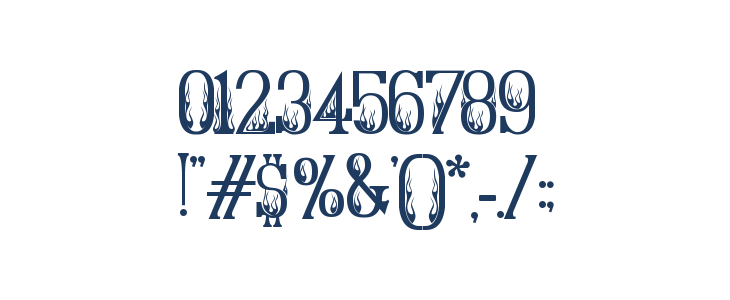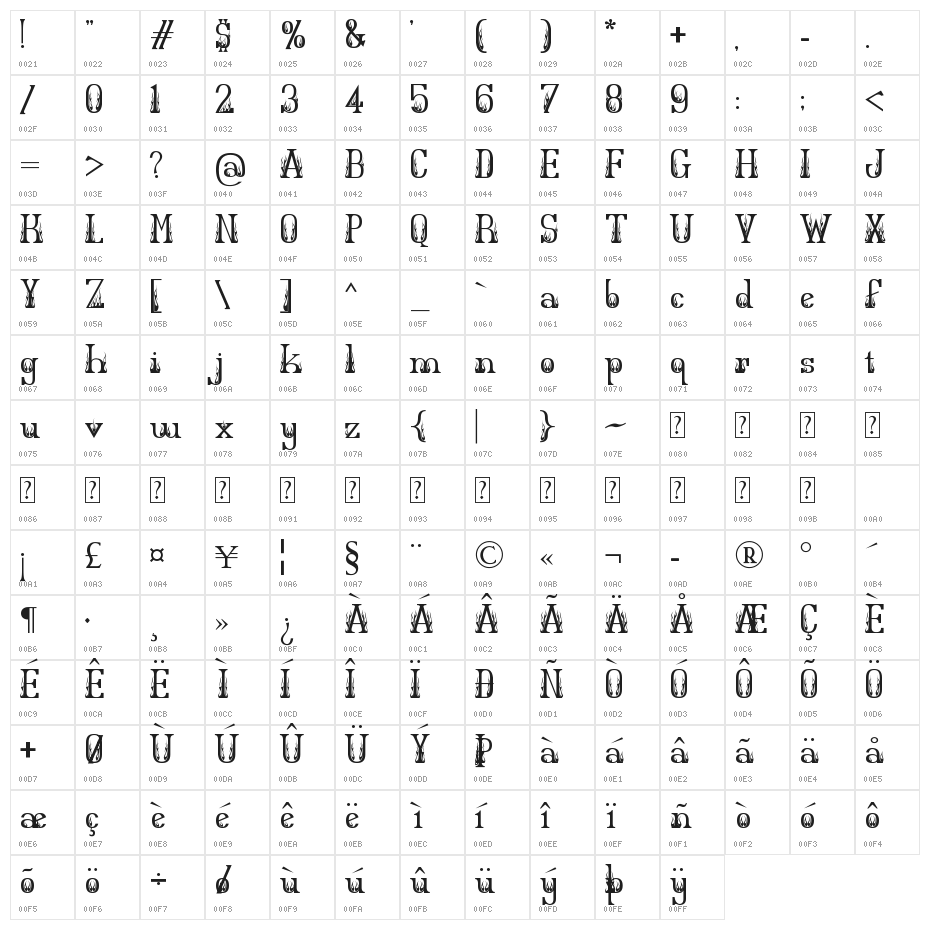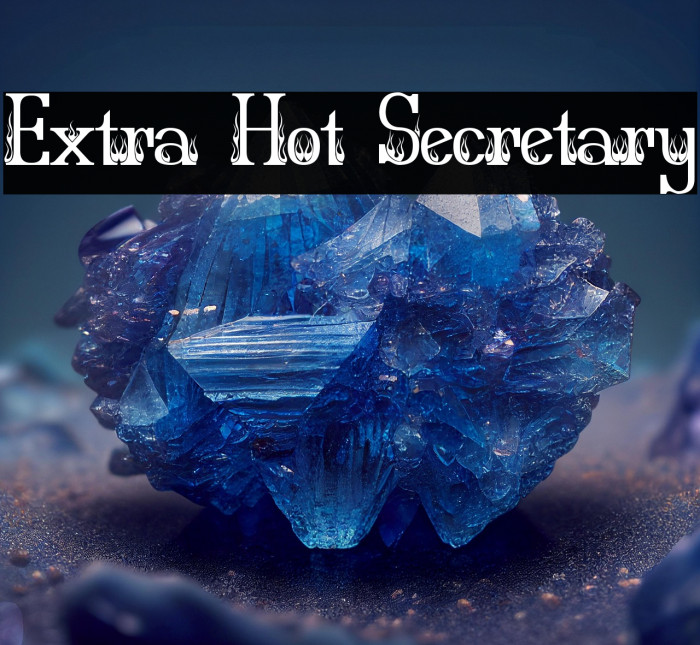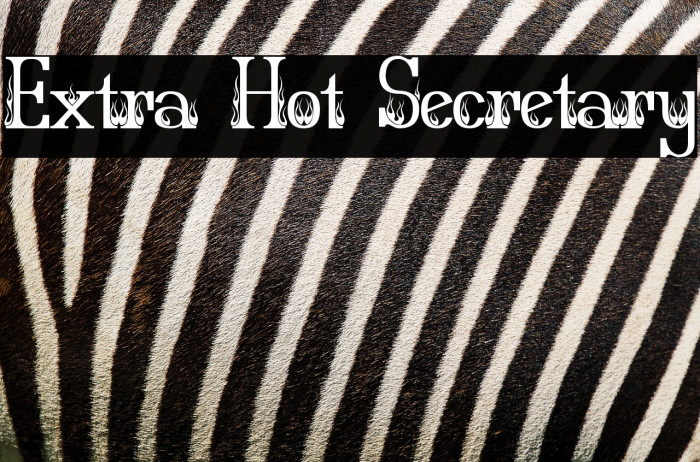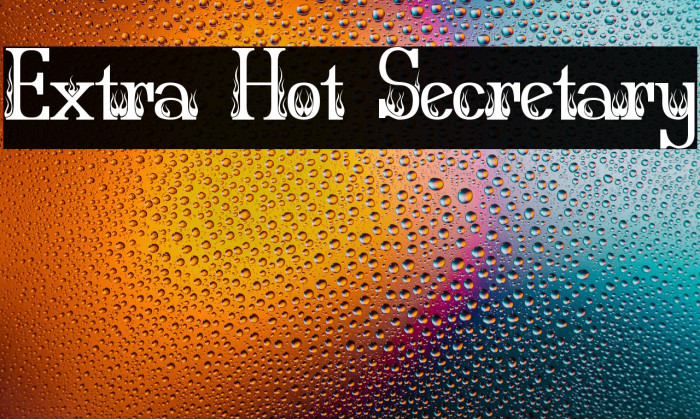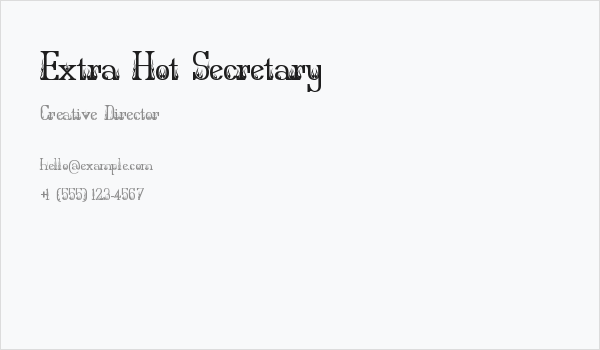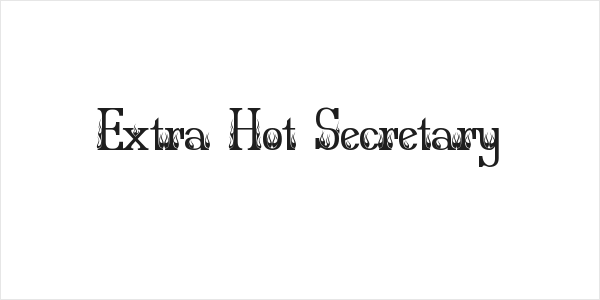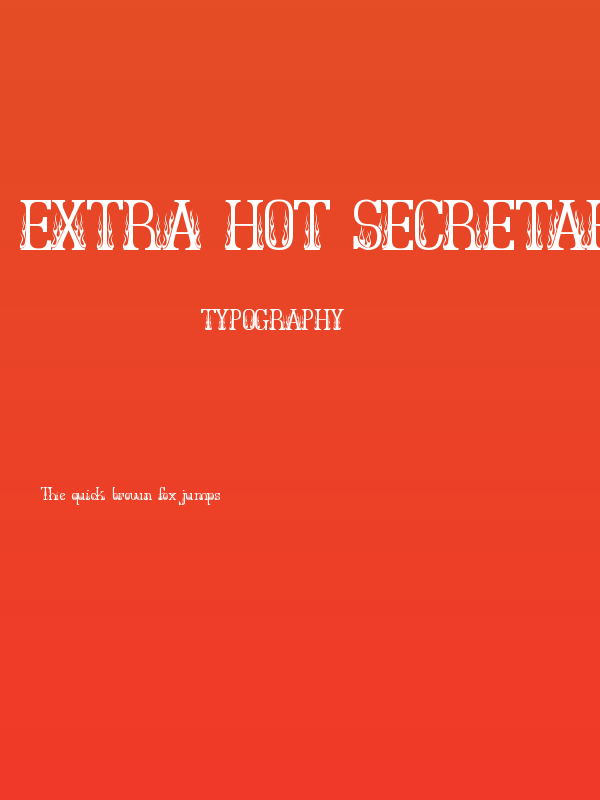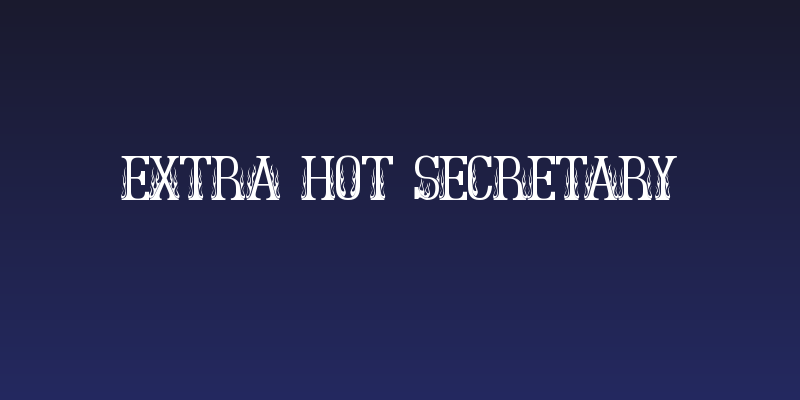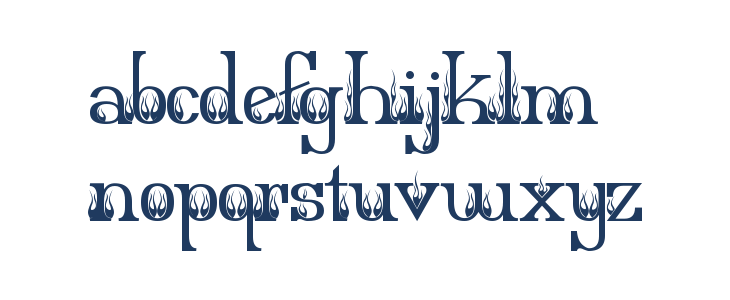
Extra Hot Secretary Font
Extra Hot Secretary Description
This font features a bold and dramatic design with flames integrated into each character, giving it a fiery and intense appearance. The uppercase and lowercase letters, as well as numbers and special characters, all incorporate flame motifs that rise from the base of each character, creating a sense of movement and energy. The strokes are thick and consistent, providing a strong visual impact. This font is ideal for projects that require a bold statement or a theme related to fire, heat, or excitement.
| Proposed Projects | Ideal for event posters, music album covers, themed party invitations, or any project needing a fiery, energetic aesthetic. |